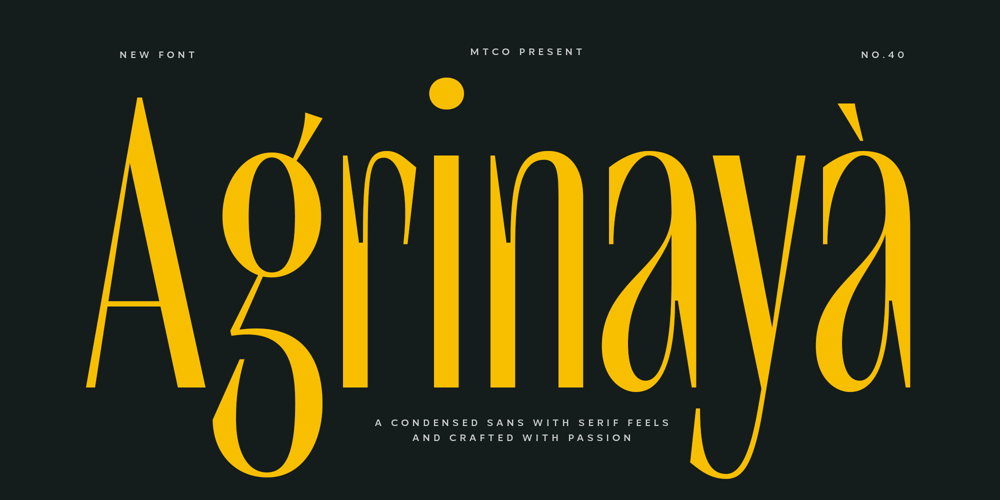
MTC Agrinaya Font Family was designed by Umar Al Farouq and published by Martype co. MTC Agrinaya contains 1 styles and family package options. Agrinaya is a condensed display font with high contrast and feels like a serif style to make it more stylish and modern, this font is made for logotypes, branding, editorial designs, and more.Thank You & Happy Designing!